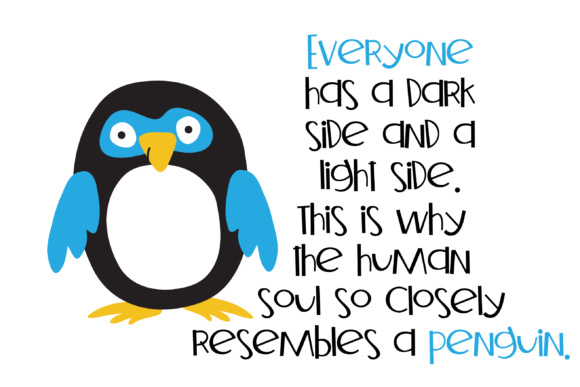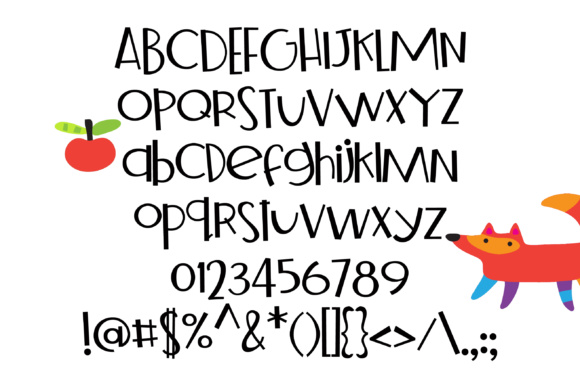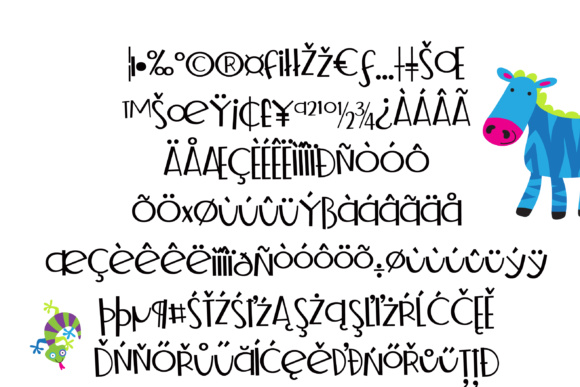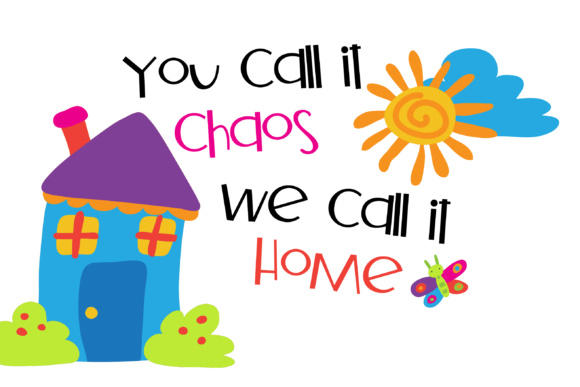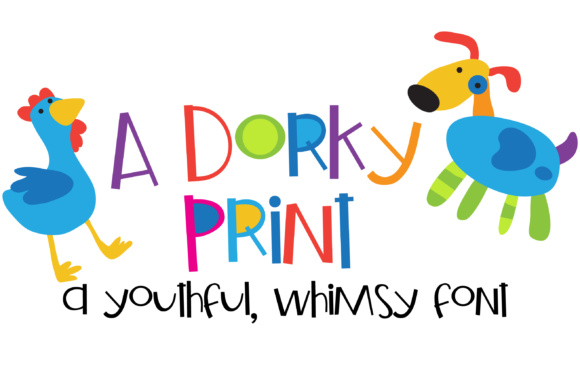
The Joy of A Dorky Print Font: A Designer’s Delight
I still remember the time I was working on a project for a children’s birthday party invitation. I had the design concept all sorted out, but I was struggling to find the perfect font to match the playful and whimsical theme. That’s when I stumbled upon A Dorky Print Font, and it instantly brought a smile to my face. The youthful and silly attitude of this font was exactly what I needed to bring my design to life.
• ✨ Unique and quirky character set that adds a touch of playfulness to any design
• ✅ Easy to read and understand, even at smaller font sizes
• 💡 Extensive range of OpenType features, glyphs, and stylistic alternates to experiment with
• 🎉 Perfect for designs that require a youthful and whimsical touch, such as children’s party invitations, craft projects, and social media graphics
While A Dorky Print Font is an amazing addition to any design project, there are a few things to keep in mind:
• 🤔 Some of the more intricate glyphs and alternates may not display correctly on older systems or browsers
• ⚠️ The font’s playful nature may not be suitable for more formal or professional designs
If you’re looking for similar fonts or alternatives to A Dorky Print Font, here are a few options:
• Kawaii Fonts: A set of playful and adorable fonts perfect for designs that require a cute and quirky touch
• Playfair Display: An elegant and refined font with a touch of sophistication, ideal for designs that require a more formal tone
• Great Vibes: A fun and energetic script font perfect for designs that require a lively and carefree attitude
• Lobster: A bold and playful font with a vintage feel, great for designs that require a statement piece
The Designer Inspiration Behind A Dorky Print Font
The story behind A Dorky Print Font is one of creativity and experimentation. The designer, inspired by the world of cartoons and comics, set out to create a font that would capture the essence of playfulness and whimsy. Through a process of trial and error, the designer refined the font to create a unique and quirky character set that would bring a smile to anyone’s face.
Q: What is A Dorky Print Font best suited for?
A: A Dorky Print Font is perfect for designs that require a youthful and whimsical touch, such as children’s party invitations, craft projects, and social media graphics.
Q: Is A Dorky Print Font available in different languages?
A: A Dorky Print Font may not have an extensive range of language support. However, the font’s character set includes a range of special characters and glyphs that can be used to create a variety of languages and alphabets.